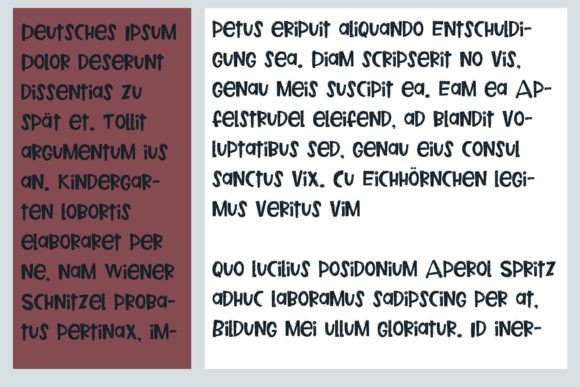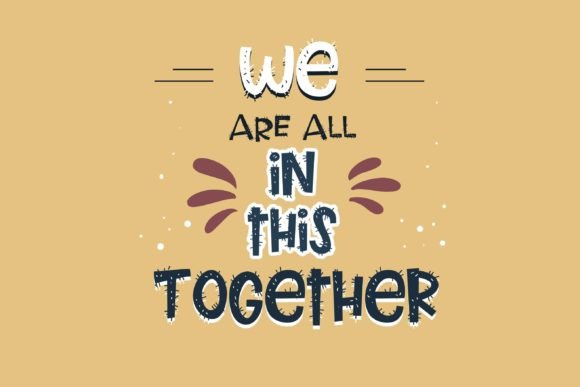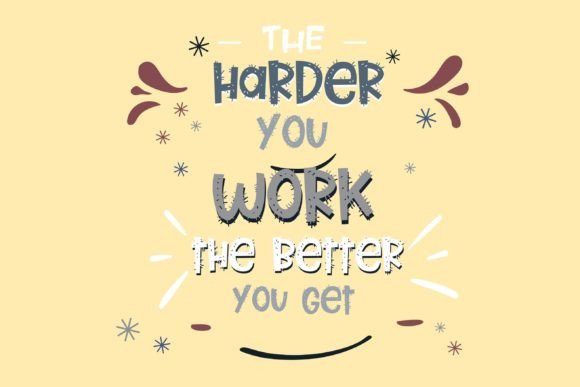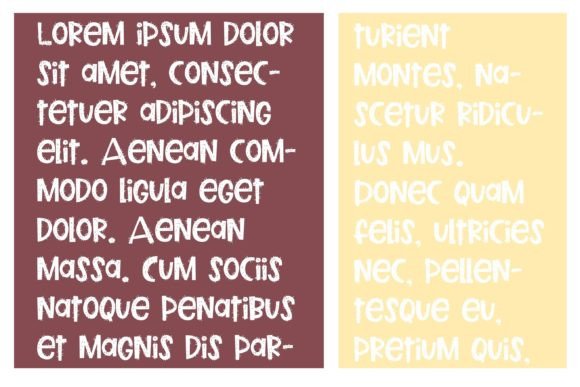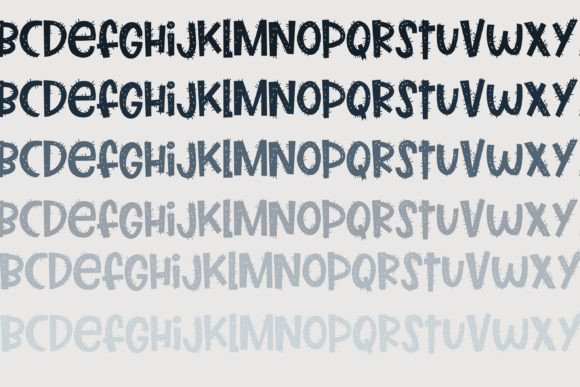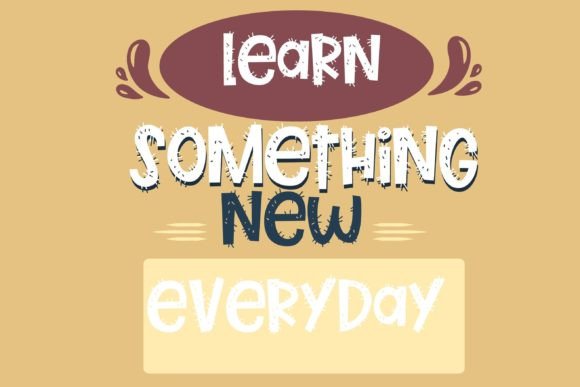
Introduction to Marshberry Hairy Font
“Marshberry Hairy is a playful font without those little feet on the letters.
Instead, it has tiny whiskers poking out here and there, giving it a cute and fuzzy feel Perfect for adding a touch of whimsy to your projects.
Key Features of Marshberry Hairy Font
Why Choose Marshberry Hairy Font?
Marshberry Hairy Font offers exceptional quality and versatility, making it a valuable addition to your design toolkit. Whether you’re creating for personal projects or commercial use, Marshberry Hairy Font delivers professional results.